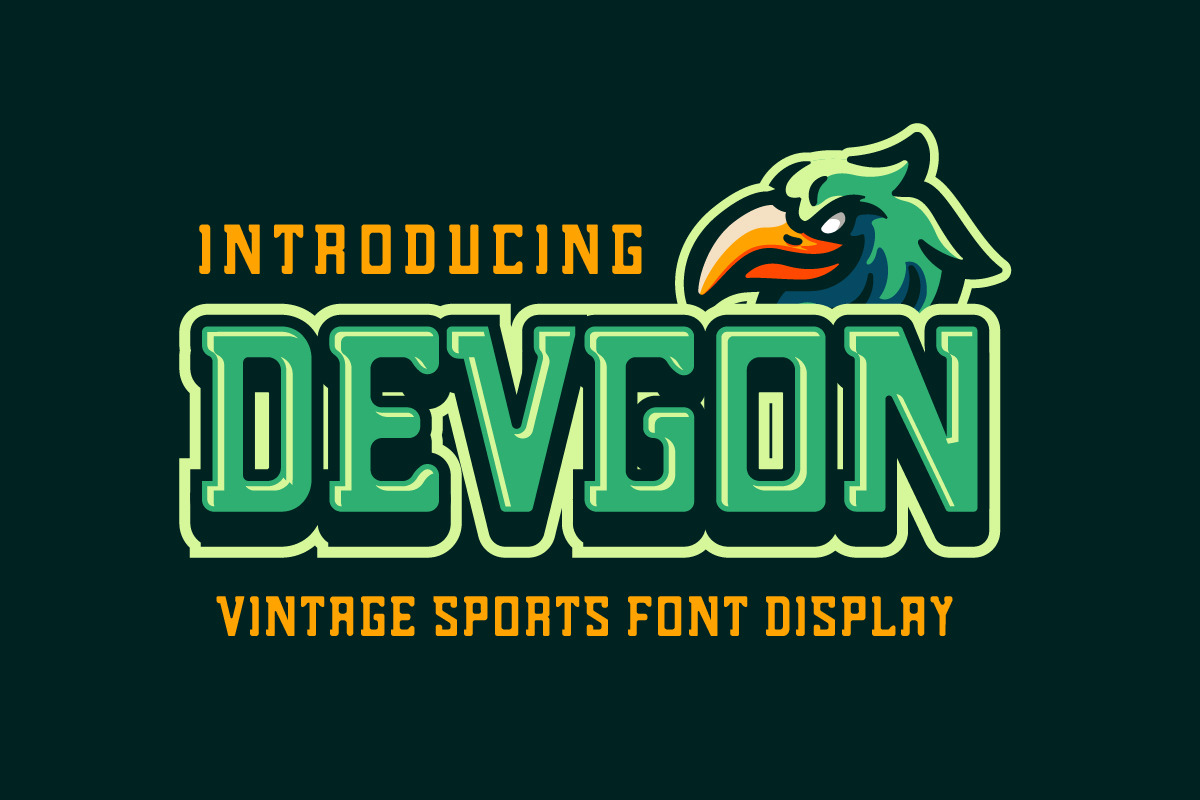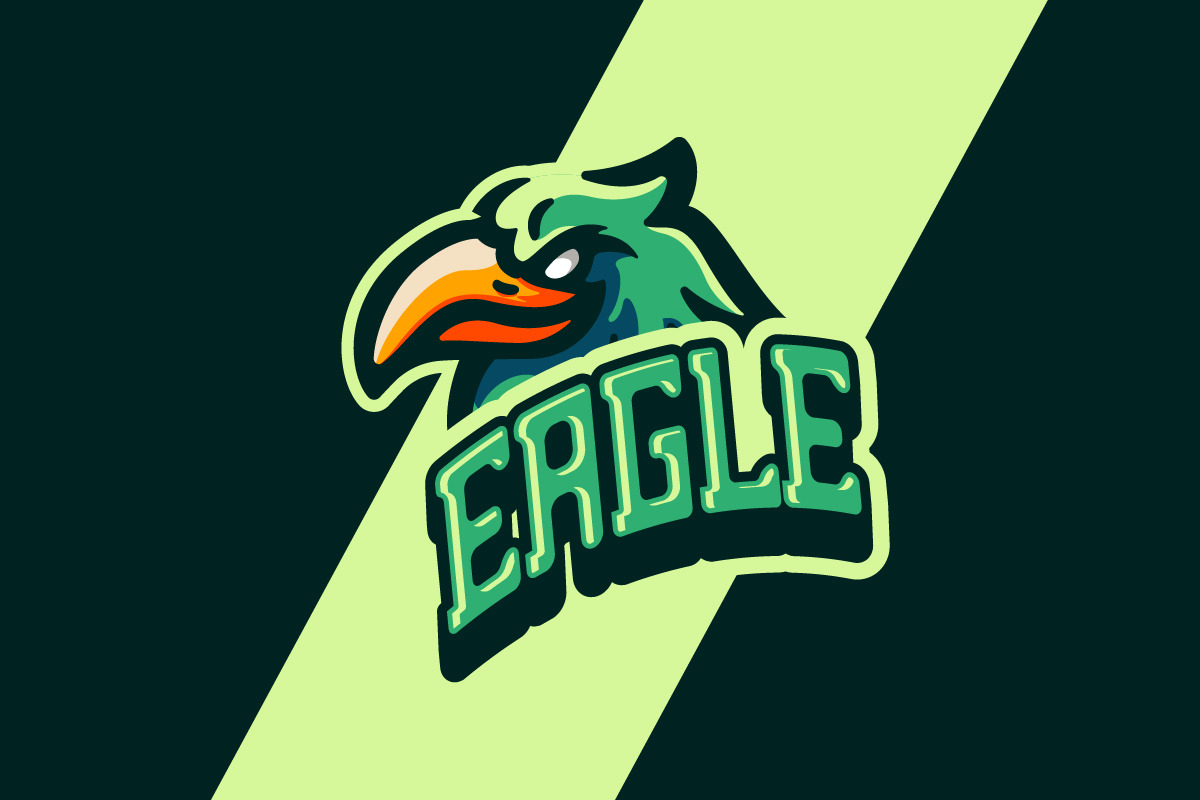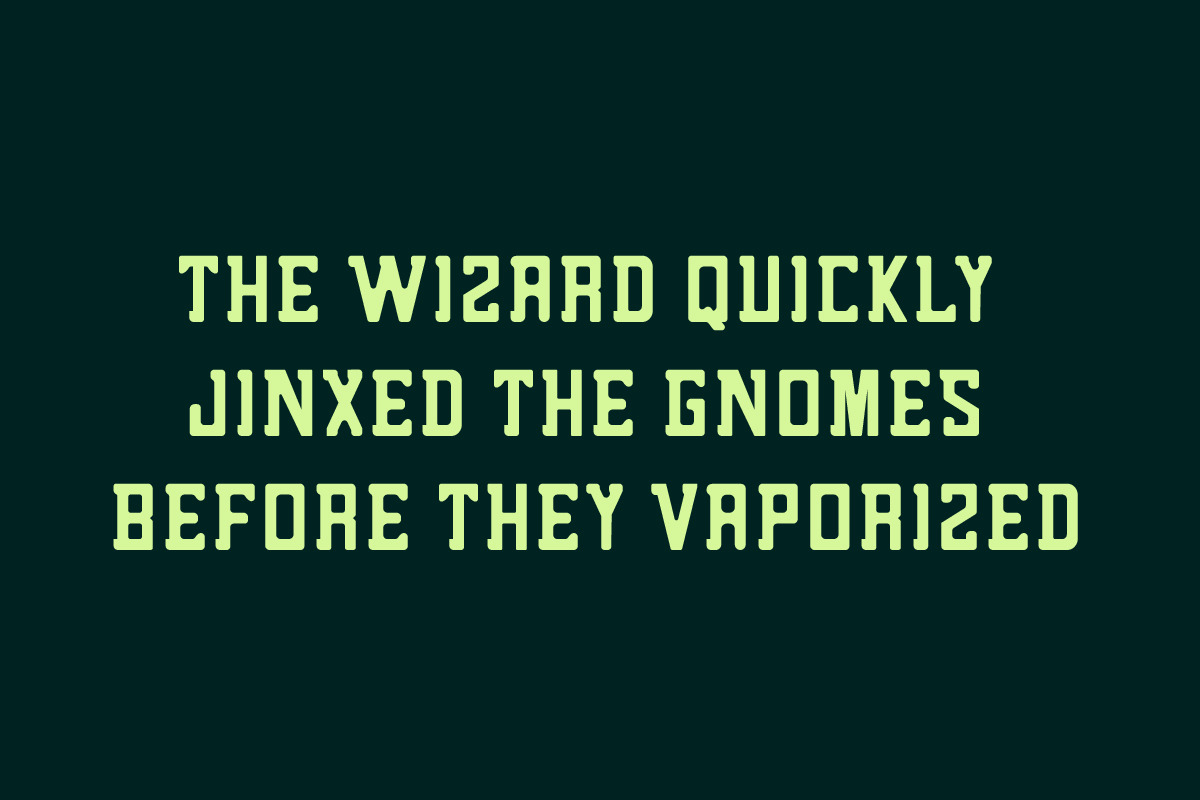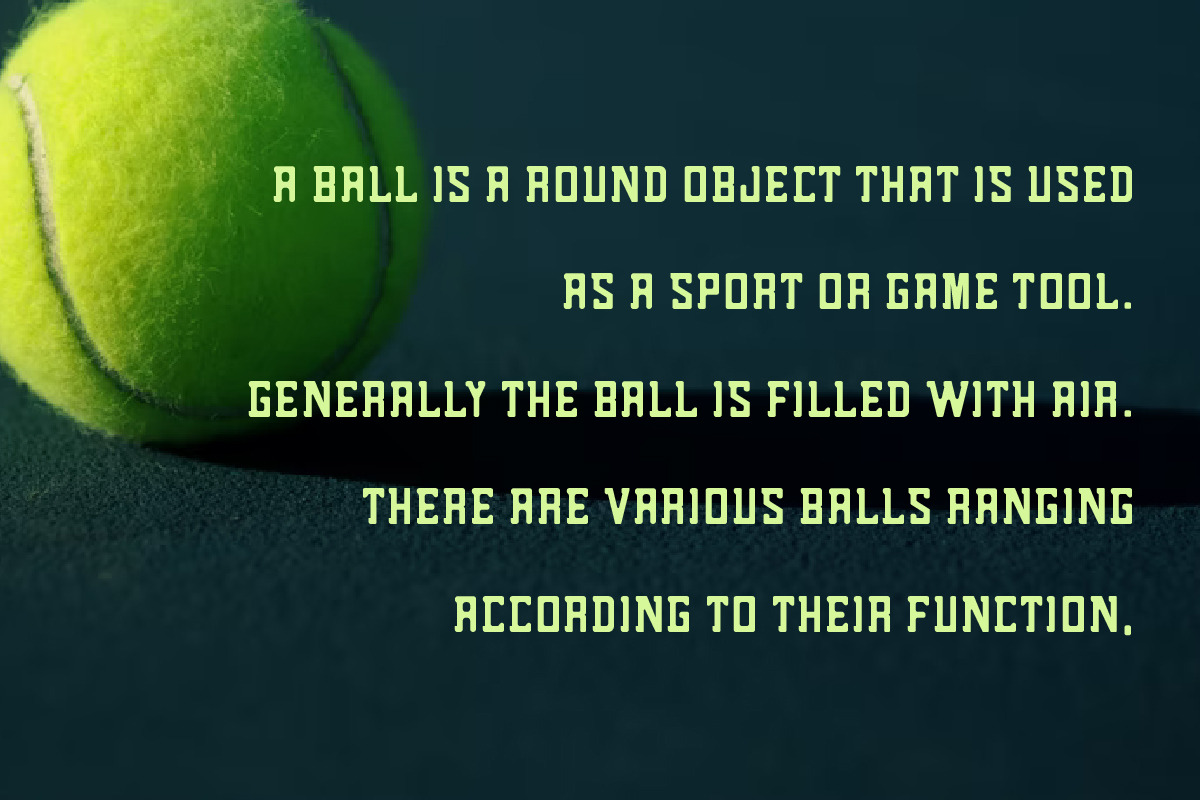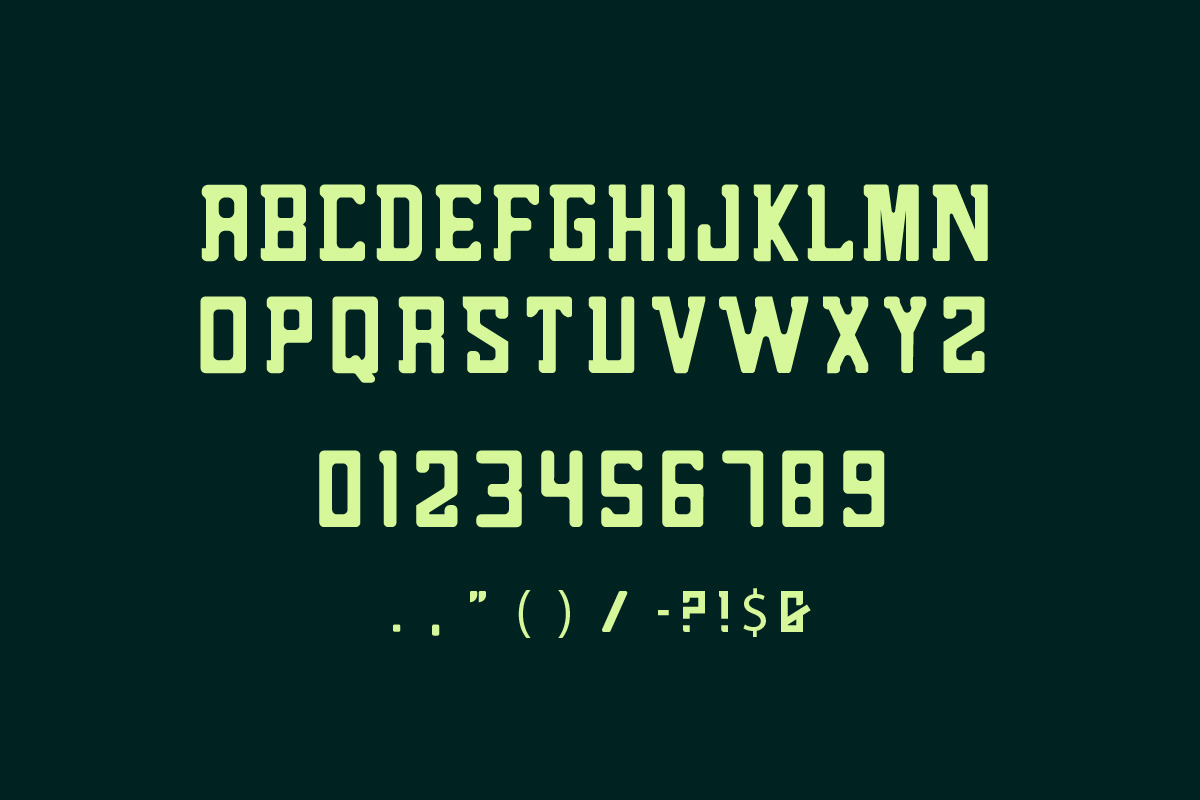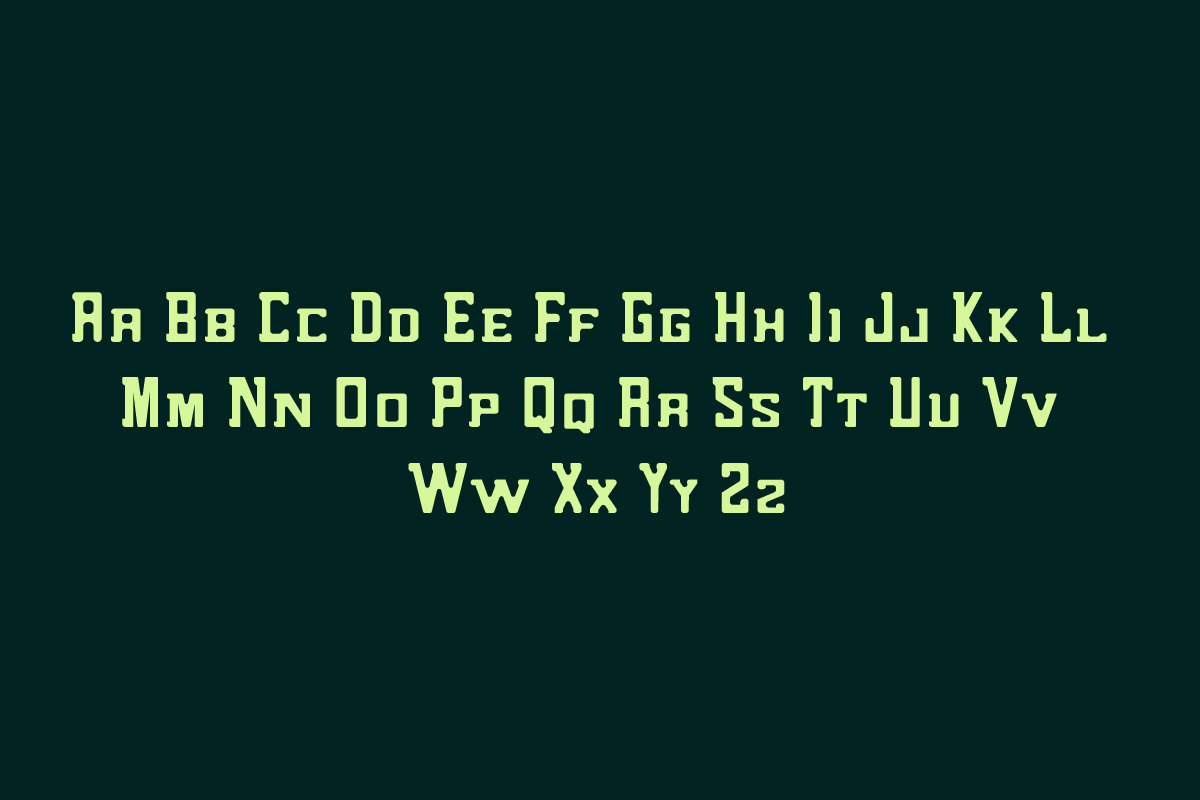
Devgon vintage sports display font
DEVGON font is our new item that suitable for your team logo or community logo.
Great for Logo, Sticker, Jersey, Invitation Card, Brochure, etc.